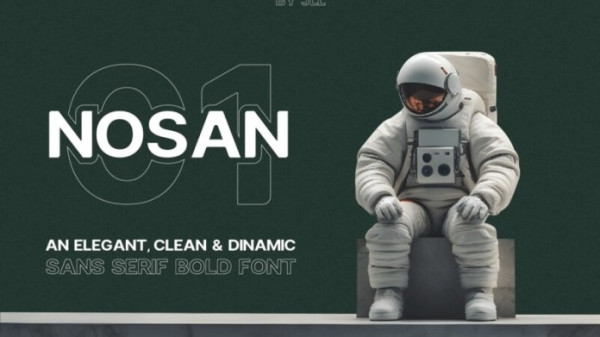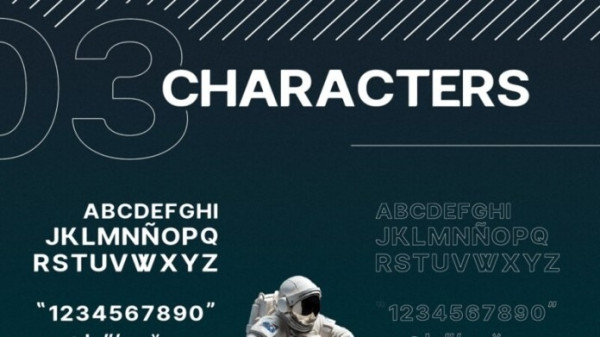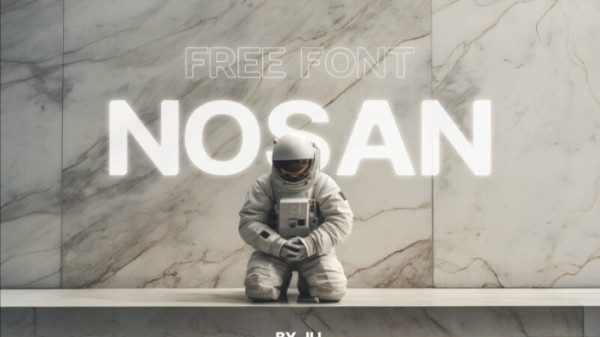
Nosan Font
Nosan Font is a handcrafted bold display font. Made from font designer named Jose Luis Lara. You can use it for a variety of design projects like posters, business cards, invitations, games, covers, social media posts, quote photos, branding, editorials, and much more.